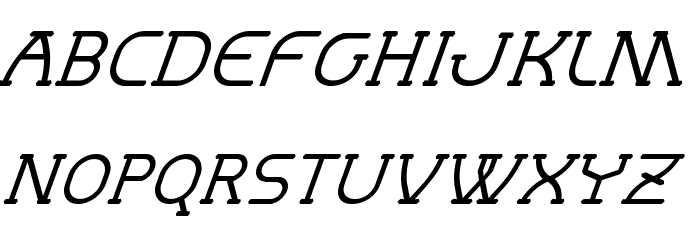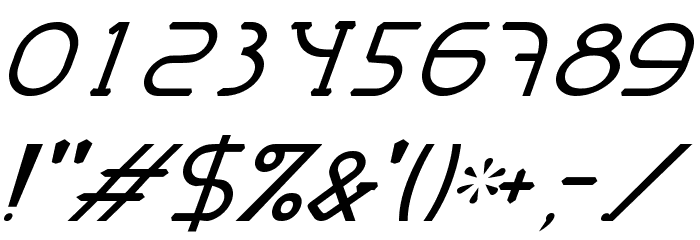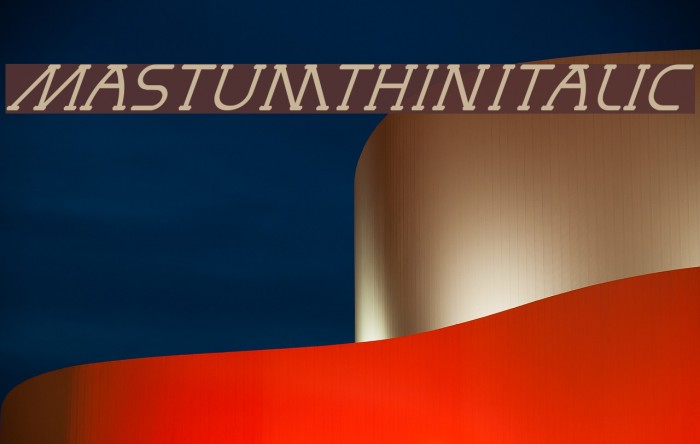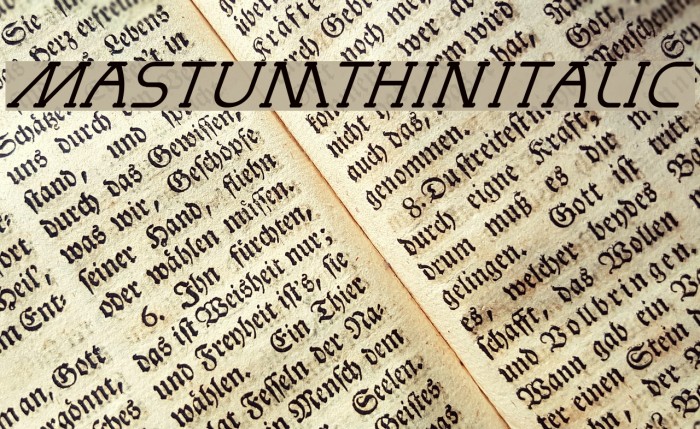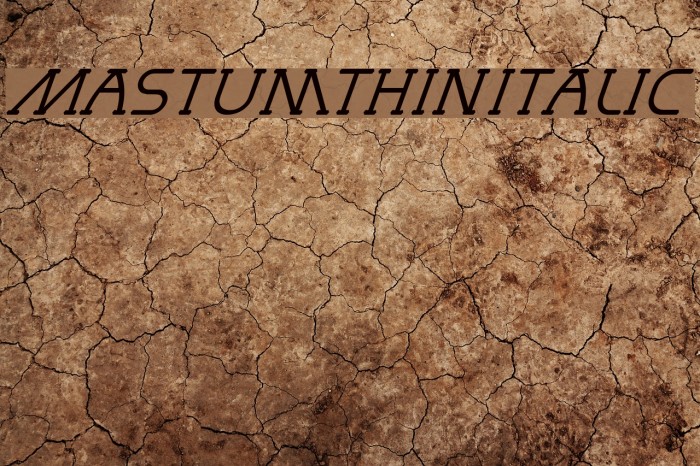
MastumThinItalic Font
This font features a sleek and elegant design with a distinct italic slant, giving it a dynamic and sophisticated appearance. The characters are crafted with precision, showcasing a blend of modern aesthetics and classic elegance. The uppercase and lowercase letters maintain a consistent style, with smooth curves and sharp edges that enhance readability. The numerals are clear and well-defined, complementing the overall design. Special characters are included, adding versatility for various applications. The font's thin strokes and slight contrast make it suitable for both digital and print media, offering a refined touch to any project.
A sleek, italic font with modern elegance and classic charm.
- Proposed Projects: Ideal for branding, editorial design, fashion magazines, and luxury product packaging.
- Overall Style: Modern, Elegant
- Use Case: Headlines, Logos, Editorials